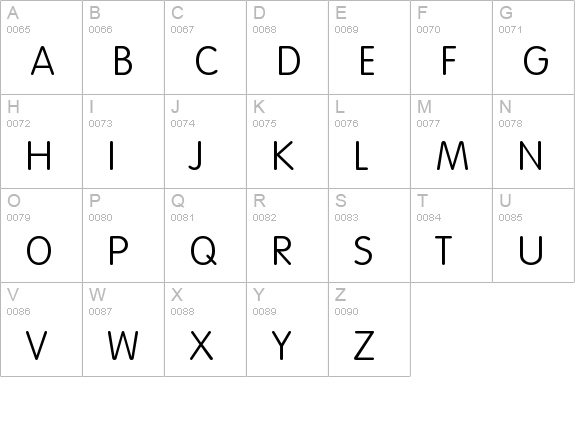
VolkswagenSerial-Light-Regular is a refined, elegant variant in the VolkswagenSerial typeface family \xE2\x80\x94 well suited to elegant body text, refined sub-headings, and luxury branding.
VolkswagenSerial-Light-Regular is a sleek and modern typeface that exudes elegance and sophistication. With its clean lines and subtle curves, this font is perfect for creating professional and polished designs. Whether you are working on a corporate project, a branding campaign, or a sleek website design, VolkswagenSerial-Light-Regular will elevate your work to the next level. The best part? VolkswagenSerial-Light-Regular is completely free for personal and commercial use. You can easily download this versatile font at FontsMarket.com, where you can access a wide range of high-quality fonts for all your design needs. Stand out from the crowd and make a lasting impression with VolkswagenSerial-Light-Regular - the perfect choice for your next project.